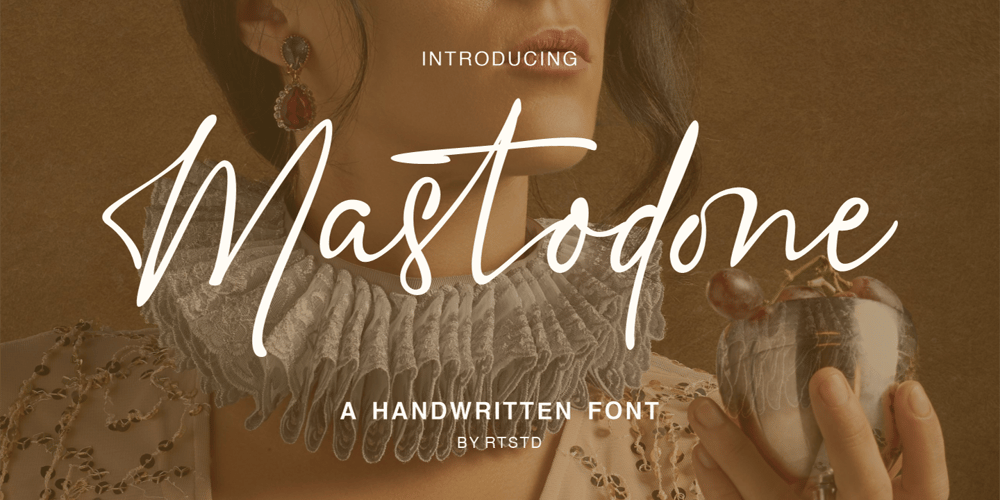
Mastodone Font Family was designed by Raditya Putra Pratama and published by Raditya Type. Mastodone contains 1 styles and family package options. Mastodone is a sophisticated handwritten font that exudes elegance and refinement. Its flowing curves and delicate lines make it an excellent choice for aesthetic-themed designs, especially those that aim to convey a sense of luxury and style. This font is perfect for beauty product branding, wedding invitations, and personal name branding, where a touch of class and individuality is essential. The organic, script-like quality of Mastodone gives any design a warm, personalized feel while maintaining a high-end appearance, making it ideal for projects that demand both grace and uniqueness.Handwritten font